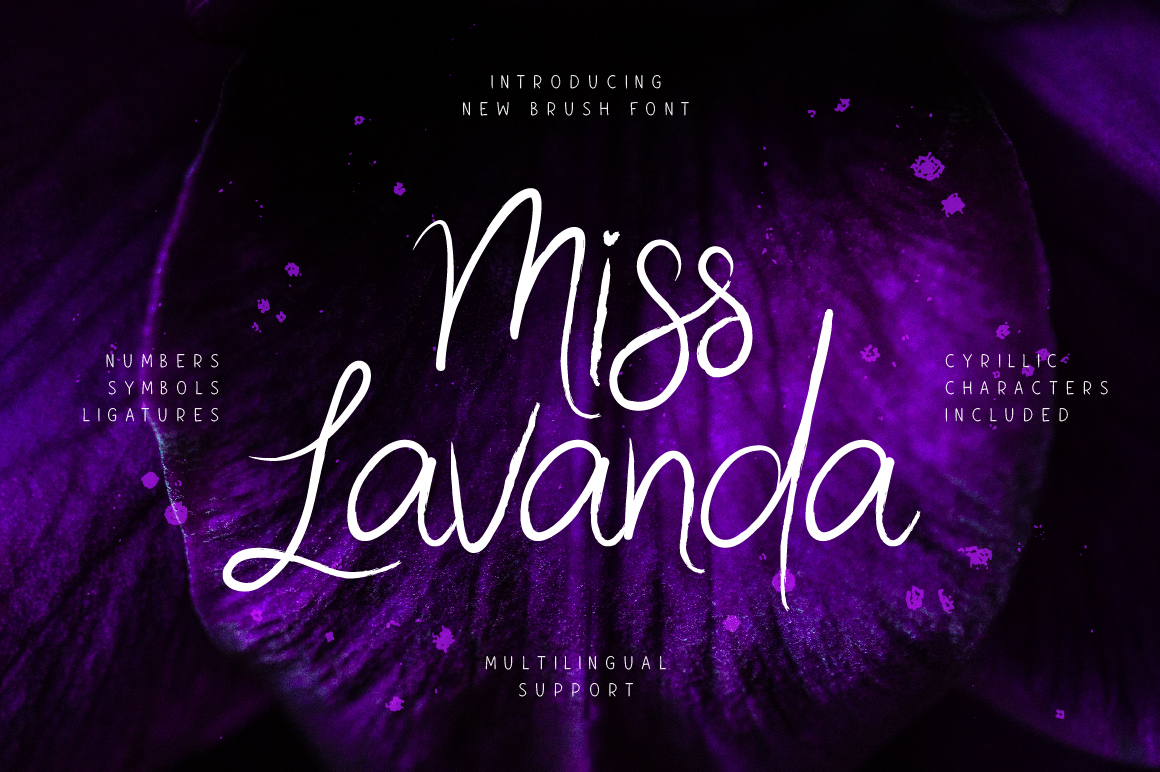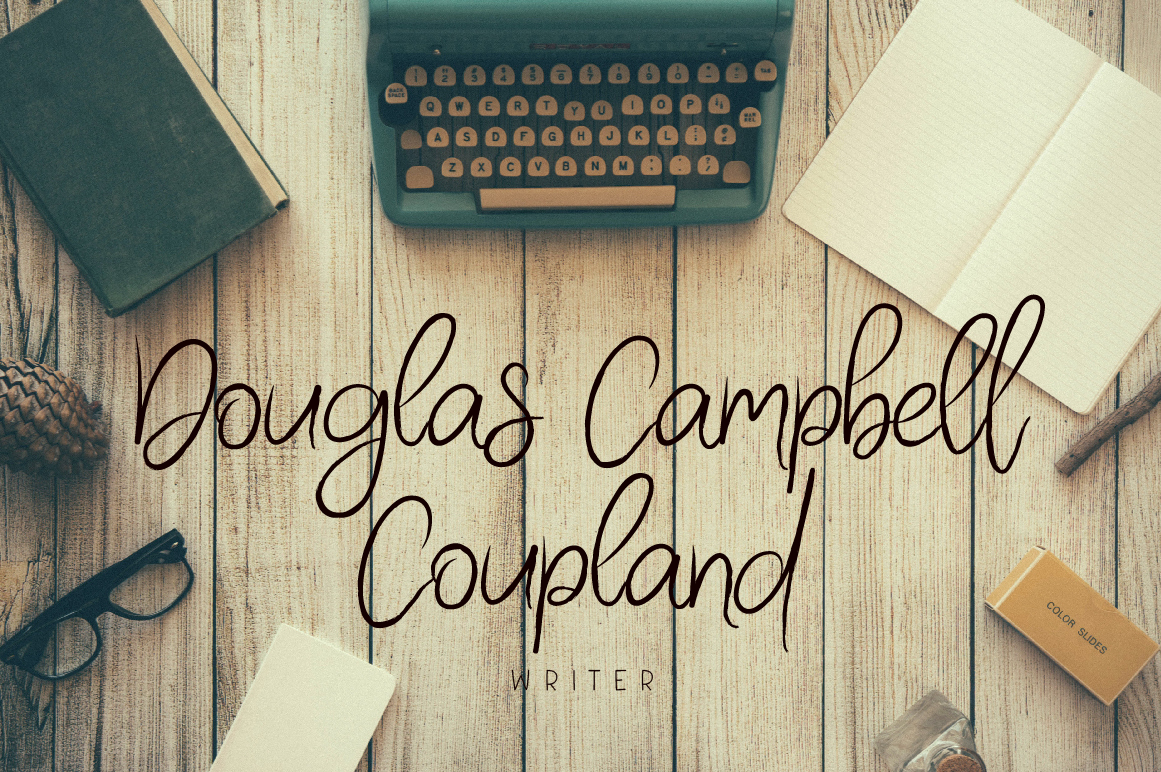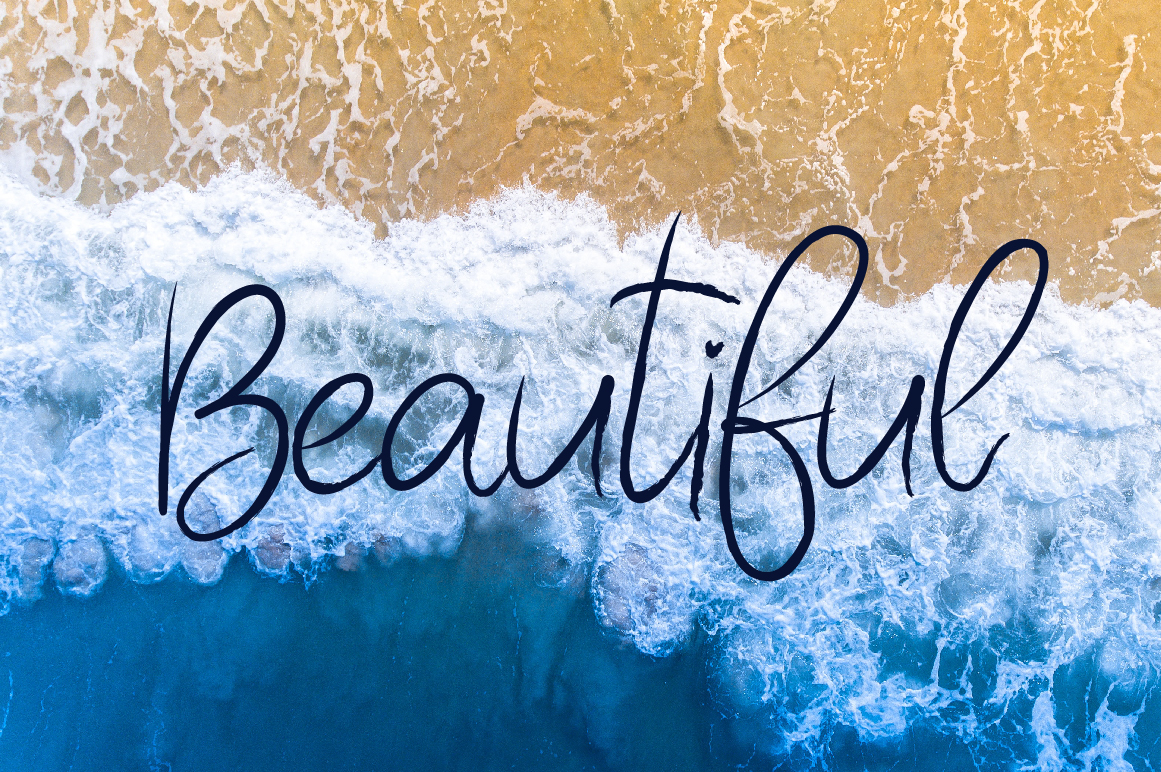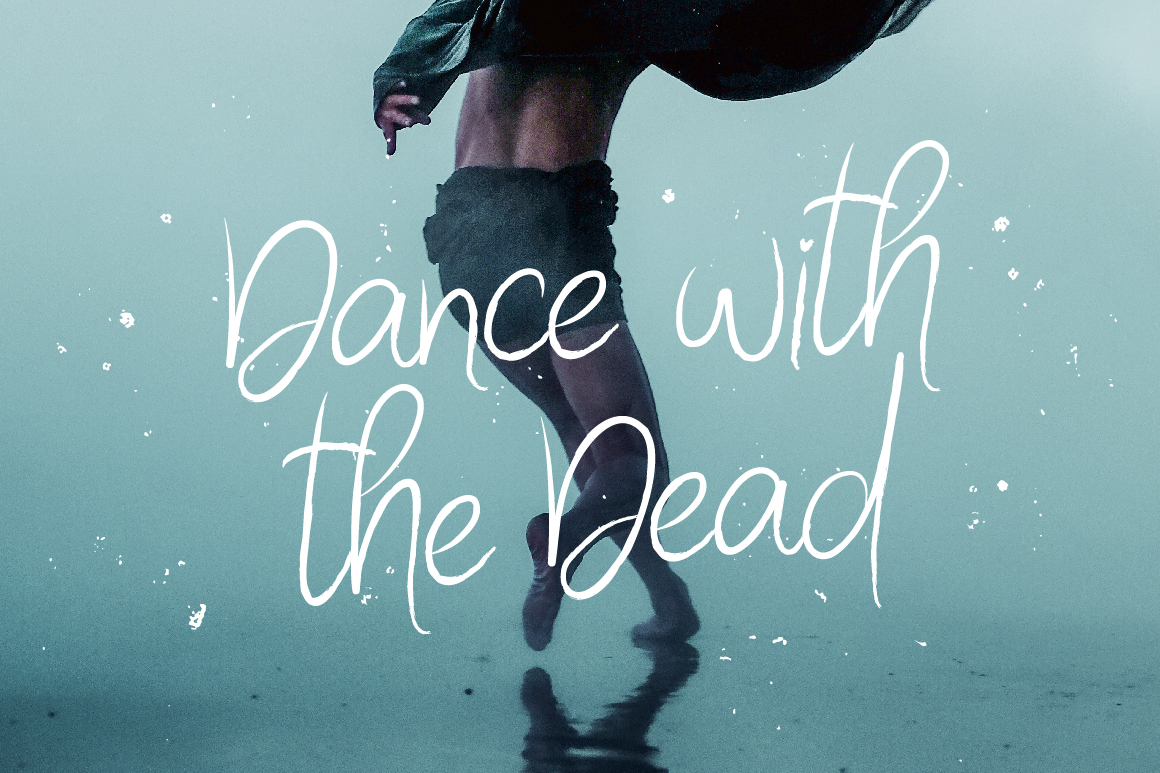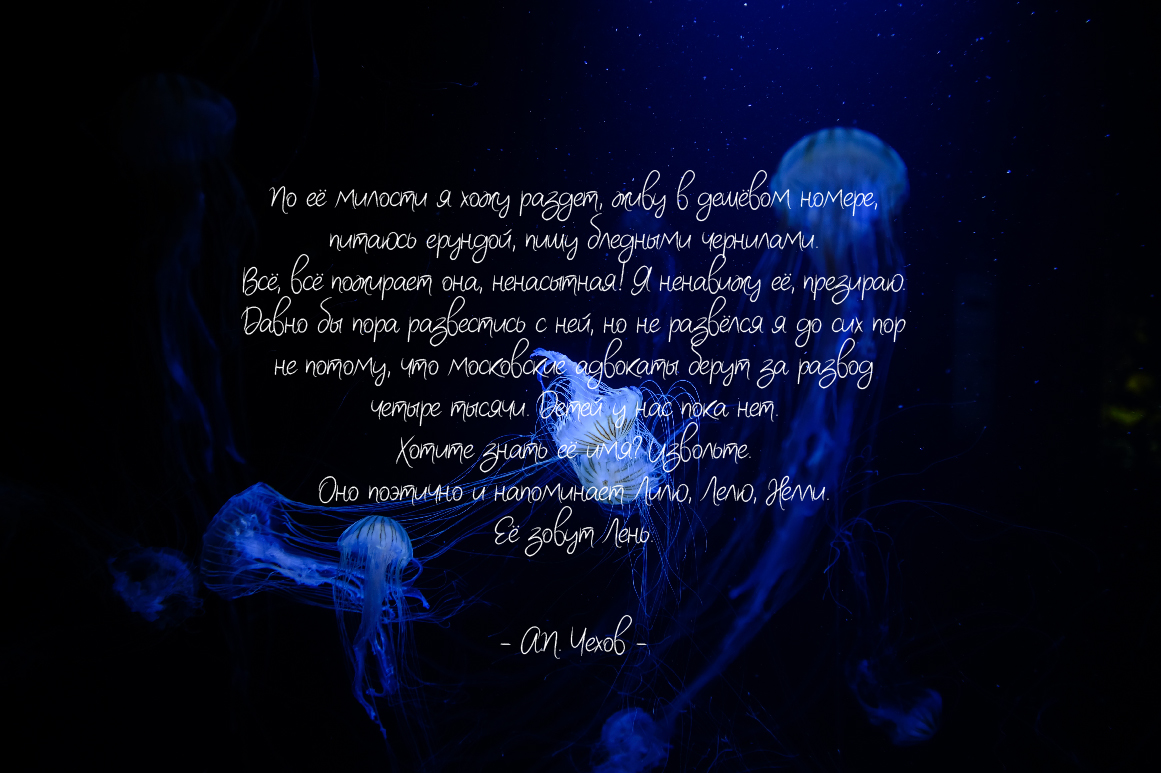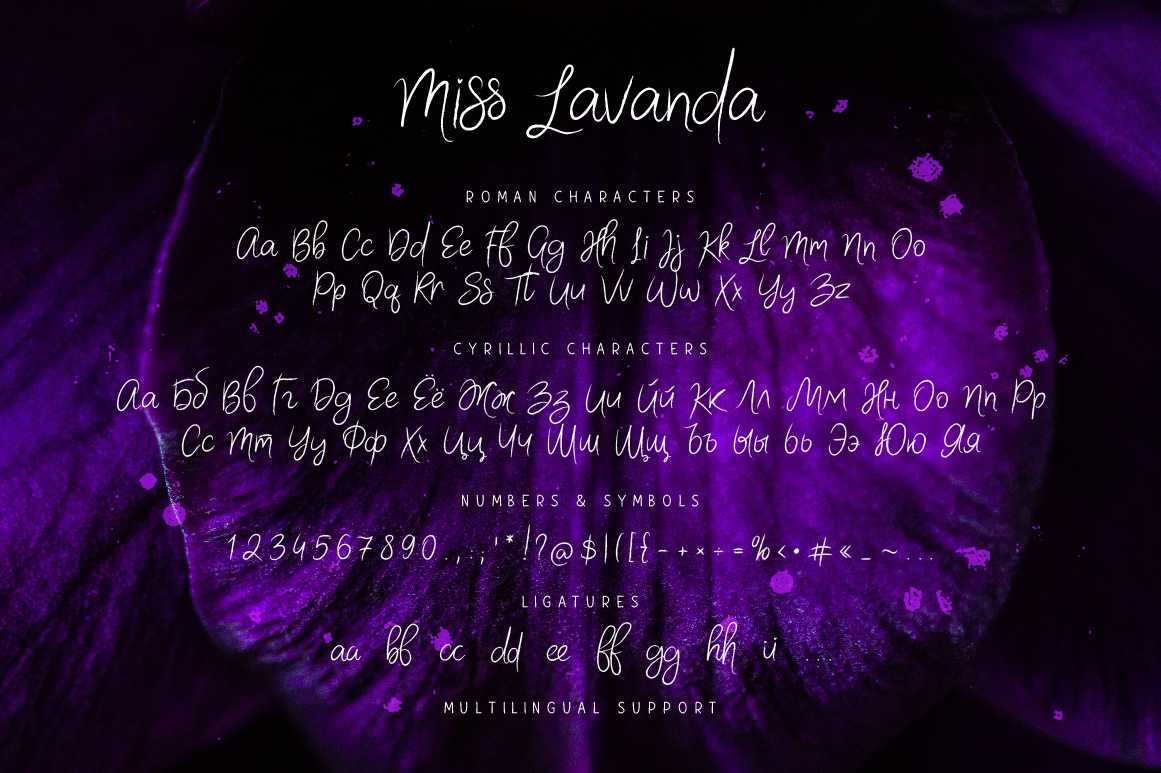
Miss Lavanda Font
About Miss Lavanda Font
Miss Lavanda is a brush font. It contains a full set of lower & uppercase letters, large range of punctuation, numerals, ligatures, cyrillic characters and multilingual support.
Perfect for logos, quotes, posters, branding projects, product packaging, t-shirt and applicable for any graphic design.